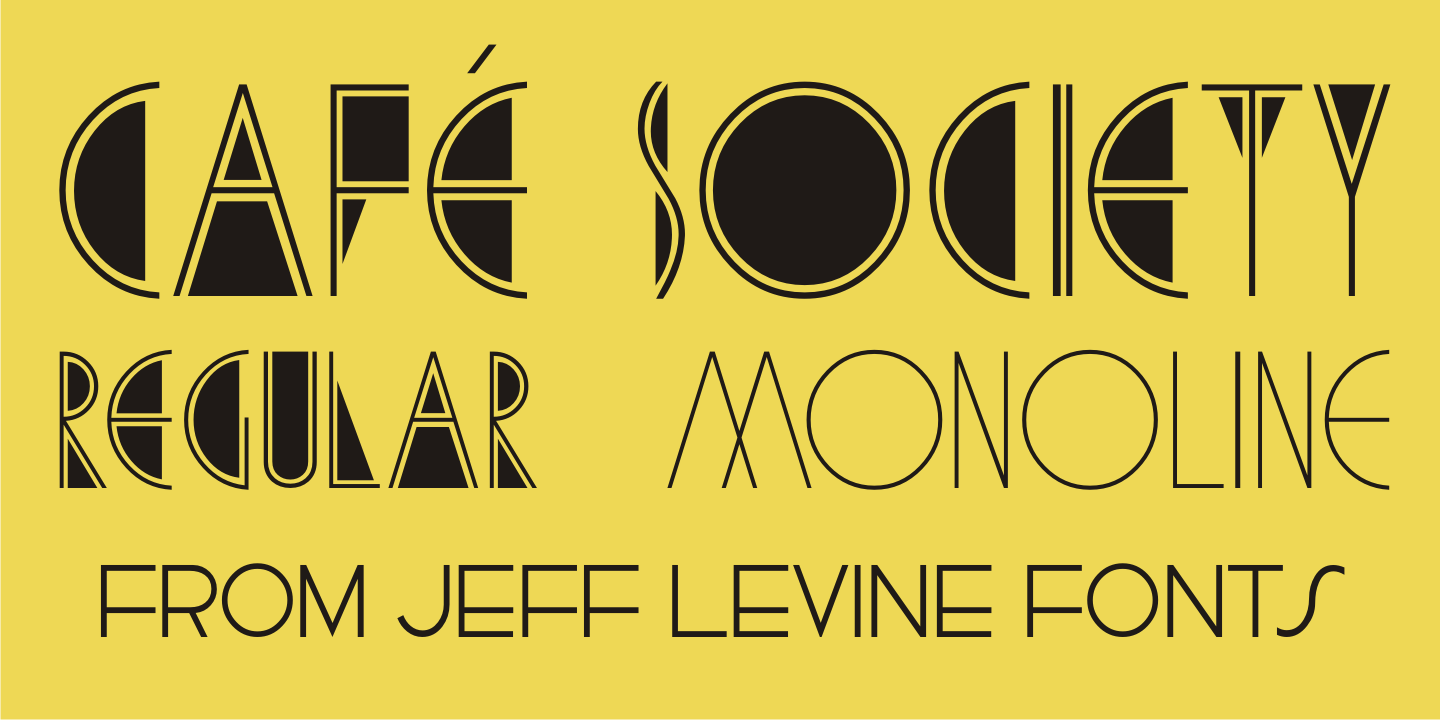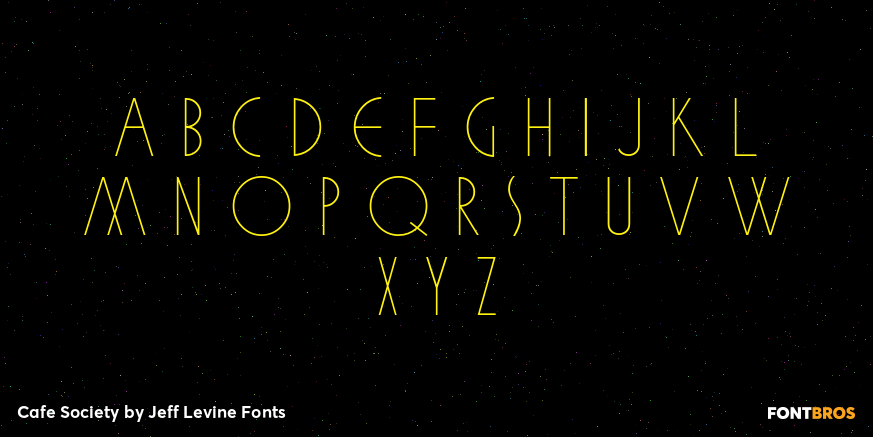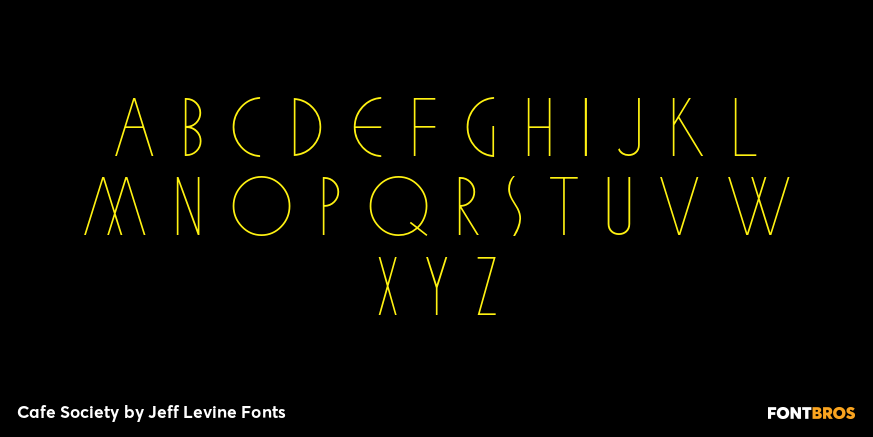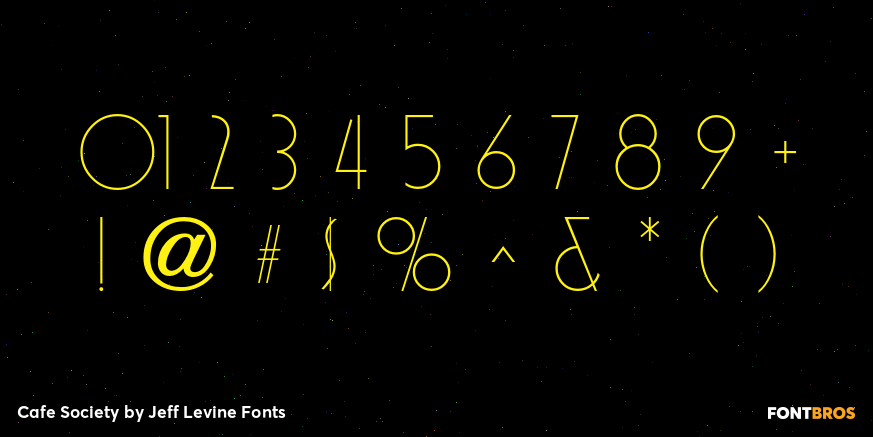
Cafe Society
Vintage sheet music was initially a partial inspiration for what started out as a simple retro typeface, but the basic hand-lettered design from the Art Deco era lent itself to some further experimentation.
Geometric shapes were added to the original monoline letters and numerals and the end result was a marvelous display face called Cafe Society JNL.
During the 1930s, "Cafe Society" was popular slang for the financially privileged during the Great Depression who dined at fine cafes while others who were able to eat out did so at diners and cafeterias.
Available along with Cafe Society JNL is the original version, Cafe Society Monoline JNL.